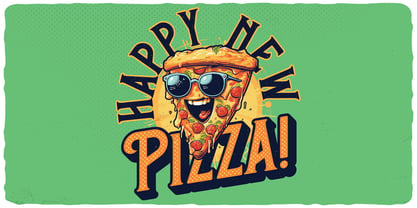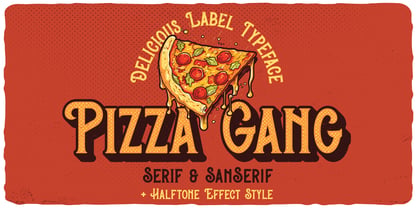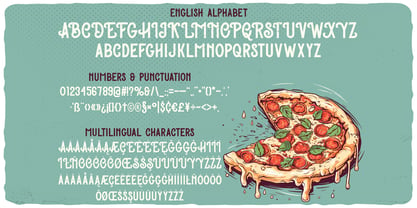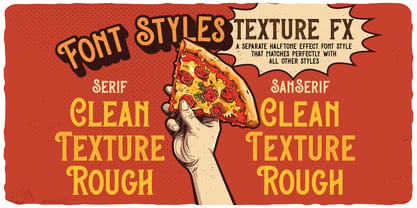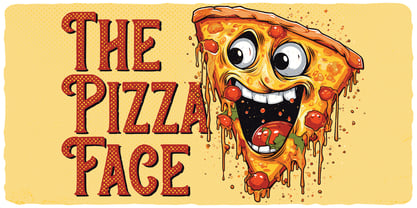
Pizza Gang
Die Schriftfamilie Pizza Gang wurde von Oleg Voznyy entworfen und von Vozzy veröffentlicht. Pizza Gang enthält 7 Stile und Familienpaketoptionen.
Introducing the original display font "Pizza Gang" – a striking and uniquely handcrafted typeface that brings character to any project. Designed with a strong visual identity, it features extended characters, punctuation, and full multilingual support. Every letter was drawn by hand to create a distinctive, eye-catching look that sets your work apart. Perfect for posters, flyers, branding, apparel, and more, this font adds a creative edge wherever it’s used. "Pizza Gang" is all about making your message stand out with style.
Designer: Oleg Voznyy
I'm a graphic designer since 2004, working on stock sites since 2013. I have a little collection of fonts created by me on different stock sites - like CreativeMarket, TheHungryJpeg, FontBundles, Shutterstock Adobe Stock etc. I like to create fonts in strong vintage styles with layer styles. I hope they will be useful for your projects; like posters, t-shirts, logos etc.